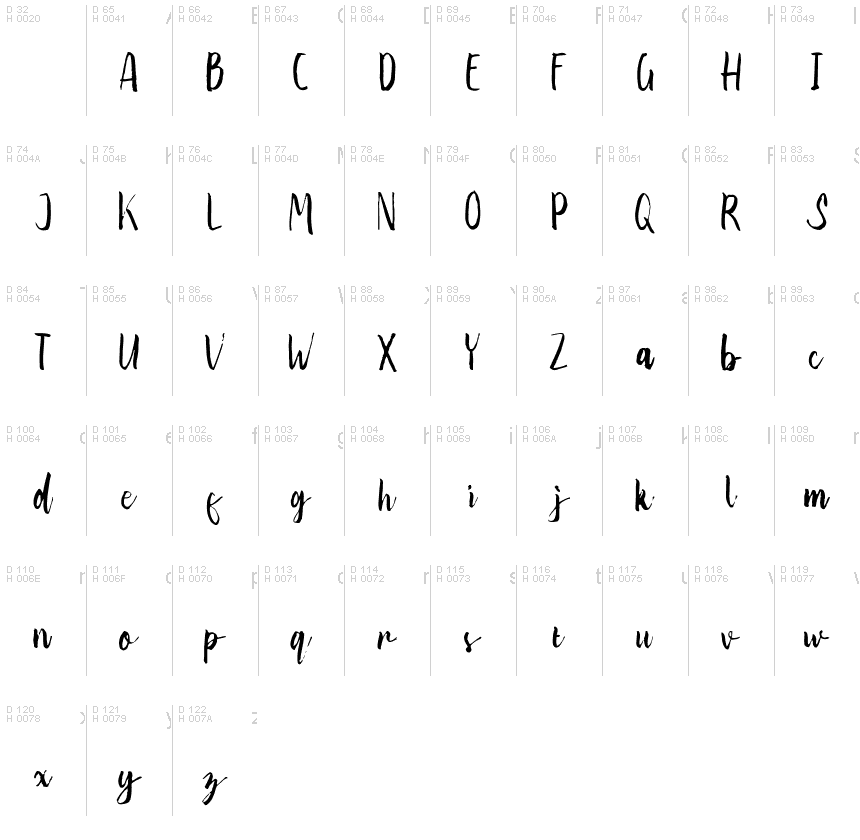
Abnada
Abnada, the semi-bold, semi-condensed brush font designed by kokostd, is a versatile typeface that adds a touch of personality to any project. The hand-drawn feel of this font is perfect for creating eye-catching headlines, logos, and graphics for fashion and beauty brands. Its unique texture also makes it ideal for designing custom invitations and stationery. Whether you're looking to add some flair to your marketing materials or want to create personalized designs with a handmade touch, Abnada is the perfect choice. Try it out on your next project and see how it enhances your message!